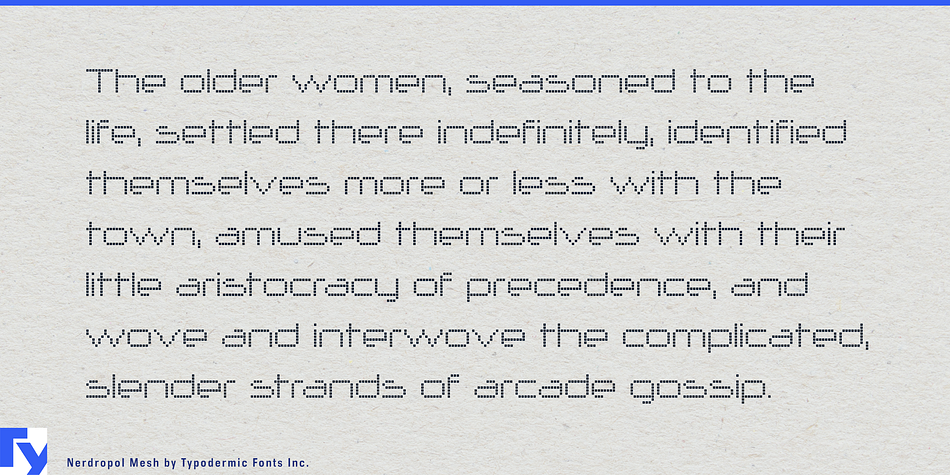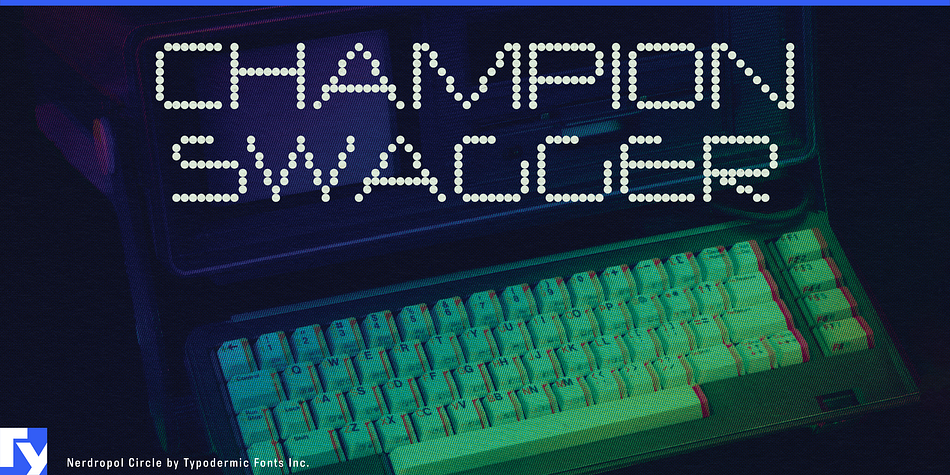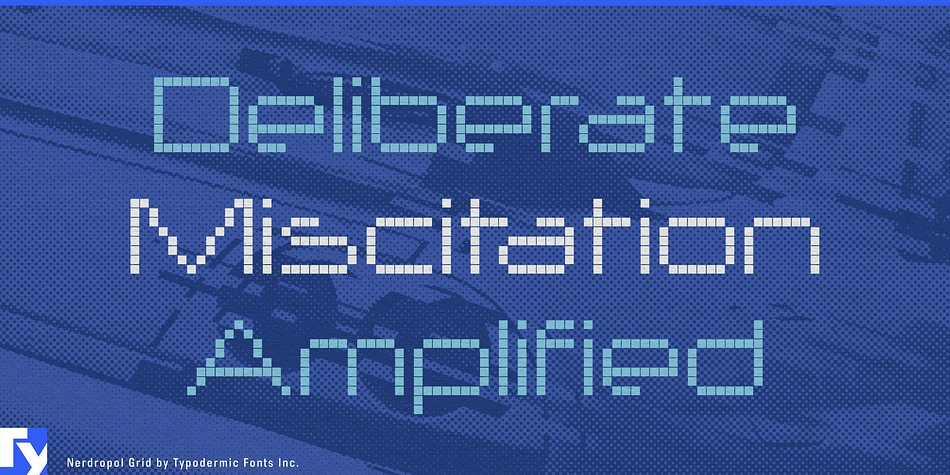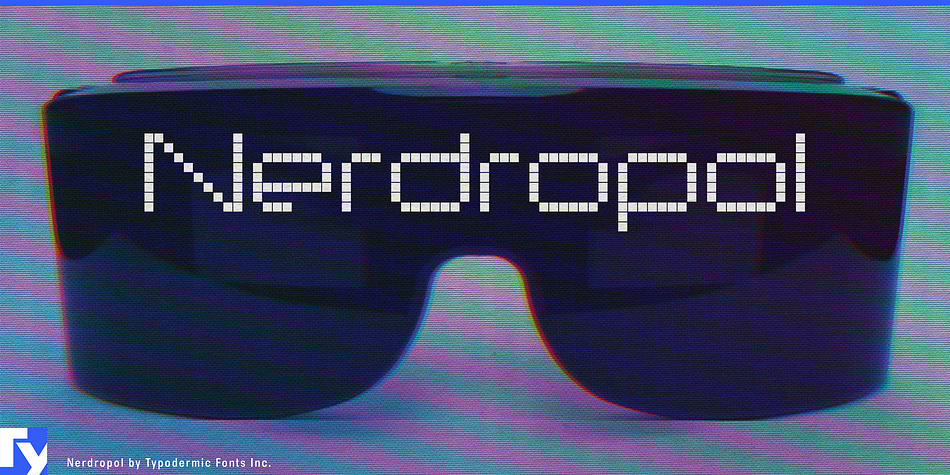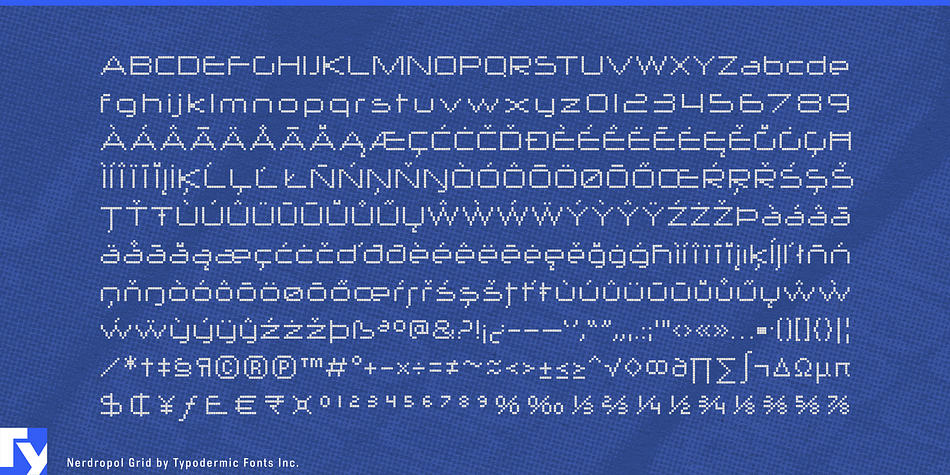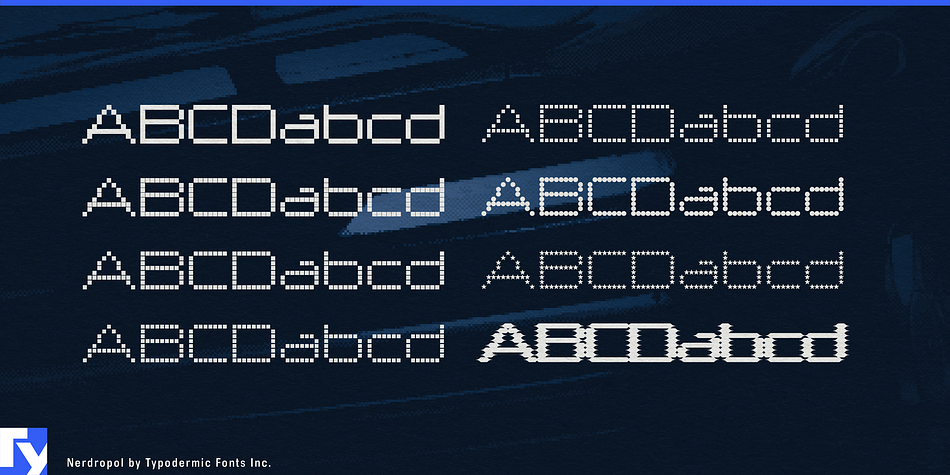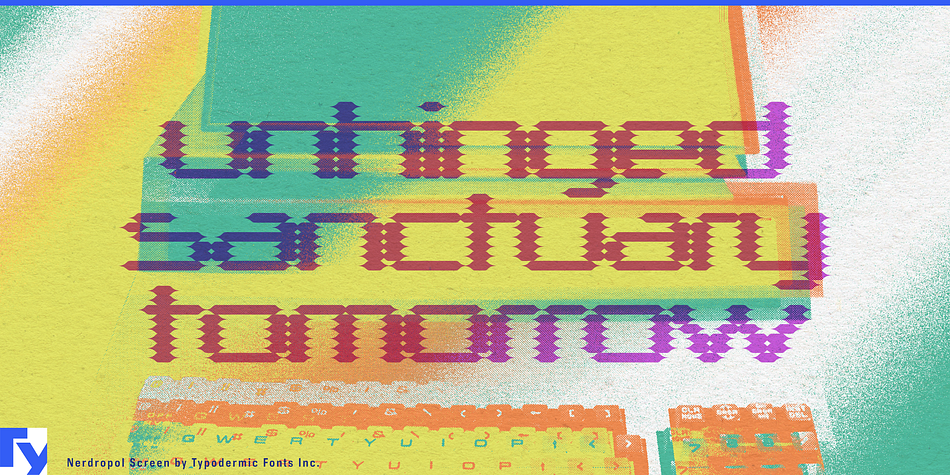
Nerdropol is a pixel font family. This typeface has eight styles and was published by Typodermic Fonts Inc.
Nerdropol, based on Neuropol X, is a simulated bitmap font available with various effects. Kerning is restricted to full pixel increments to give it that authentic pixel font look.